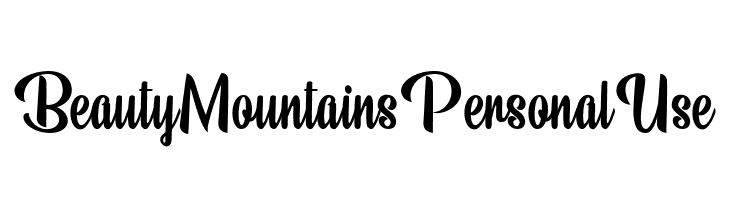
( Fonts by Etik Fatimah )
Playful handwritten font with tall, narrow characters.
( www.leodsen.com )
A bold, decorative font with a vintage, distressed style.
A bold, italic, and futuristic font with a dynamic, angular design.
( Levi Szekeres - www.loremipsum.ro )
A bold, stencil-style font with rounded edges and heavy weight.
( Fonts by Des Gomez )
A playful, handwritten font with quirky, heart-shaped accents.
( KA Fonts - web.archive.org/web/20050320012407/www.geocities.com/braspal/ka/ka-fonts.html )
A playful font with animated uppercase letters and bold, clean lowercase characters.
( Fonts by Bryan Payne )
A bold, expressive handwritten font with dynamic strokes and a playful style.
( www.woodcutter.es )
A bold, punk-inspired font with a halftone texture and collage-like appearance.